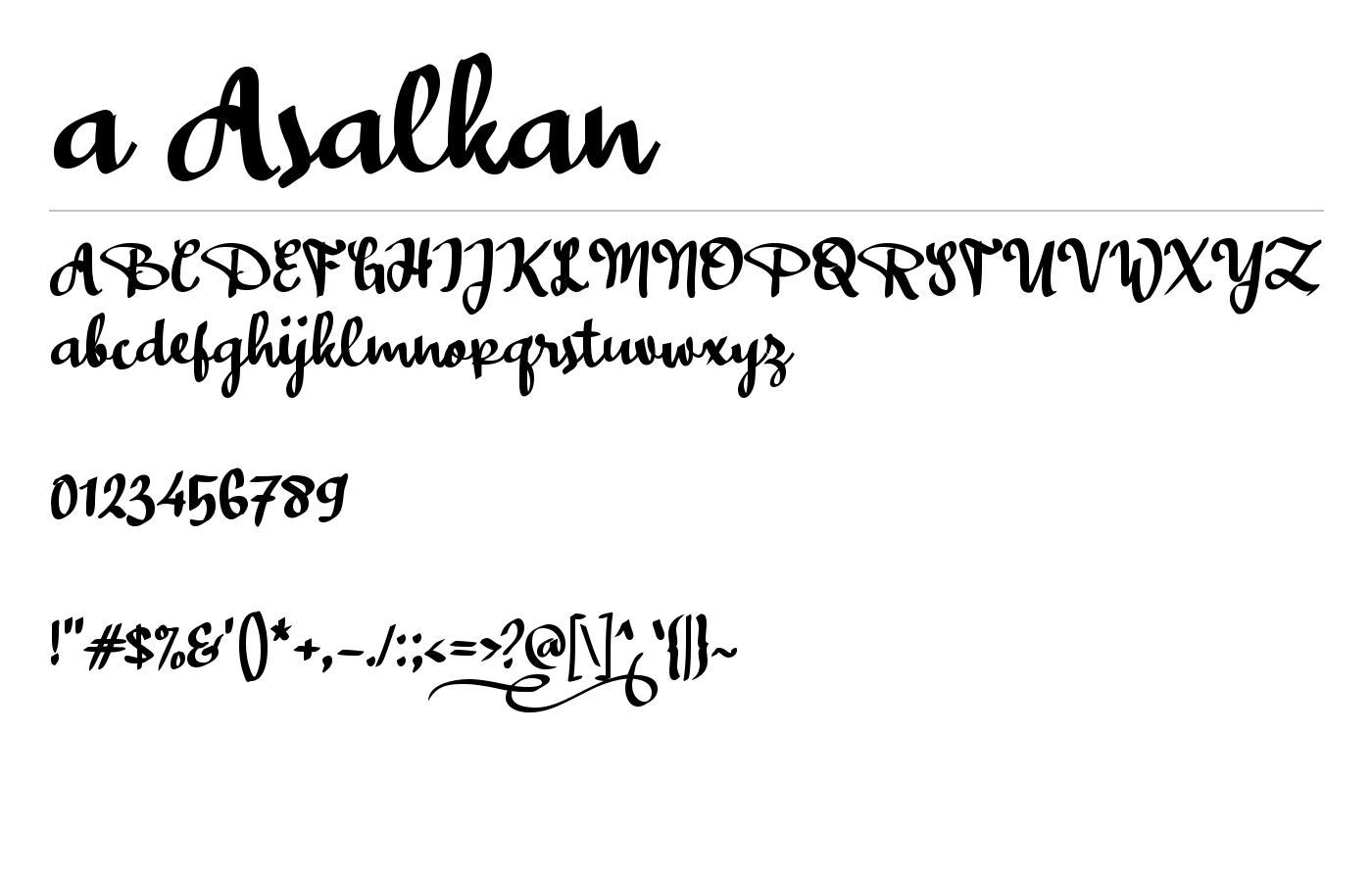
Asalkan is a decorative script font with elegant, flowing strokes that give it a hand-lettered, calligraphic feel. Its medium weight and distinctive swashes create a lively and artistic personality, making it ideal for creative branding, invitations, and display uses where a touch of sophistication and uniqueness is desired. This font works especially well in contexts that call for charm and flair, such as fashion, wedding designs, and boutique logos.
a Asalkan Font